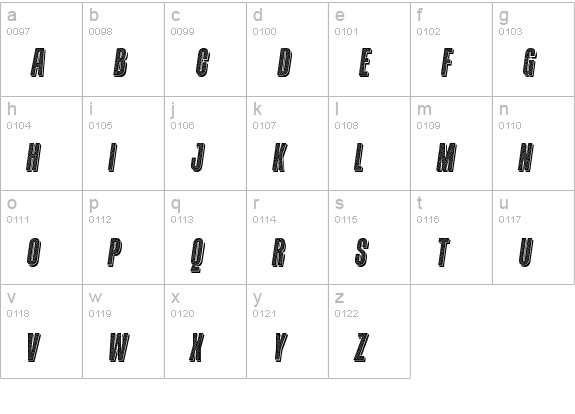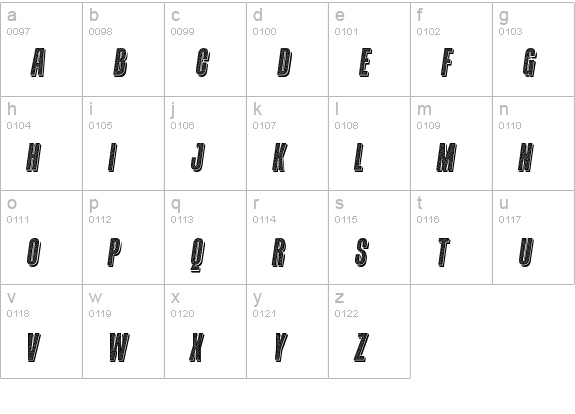
Containment Full Font Details
Containment Full font is a modern and versatile typeface that combines sleek lines with a bold presence. This font exudes a sense of strength and stability, making it perfect for a wide range of design projects. Its sharp edges and geometric shapes give it a contemporary feel, while its clean and clear letterforms ensure readability in any context. What makes Containment Full font even more appealing is that it is completely free to download at FontsMarket.com. This means that you can access this high-quality font without any cost, making it a valuable addition to your design toolkit. Whether you are working on branding, advertising, or editorial projects, Containment Full font will help you make a bold statement and stand out from the crowd. Overall, Containment Full font is a versatile and visually striking typeface that is sure to elevate your design projects. Download it for free today at FontsMarket.com and unleash its full potential in your creative work.